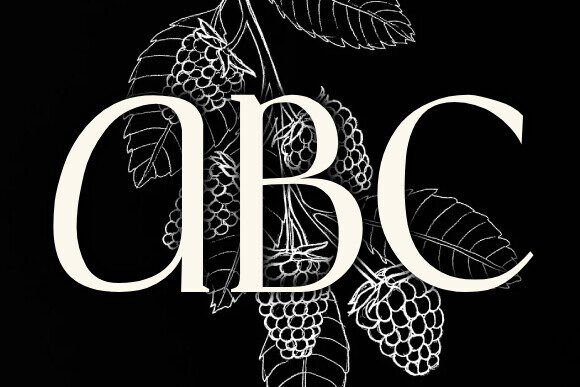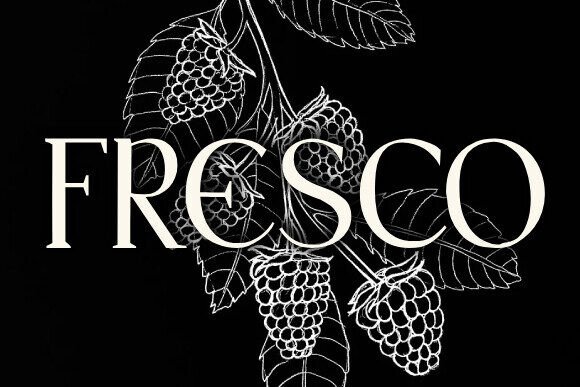
Introduction to Pigment Font
Have you ever been working on a creative project and stumbled upon the perfect font that brings your design to life? For me, that moment was when I discovered the Pigment Font – a stylish and high-quality font that adds a unique touch to any design. Whether you’re creating posters, flyers, or even t-shirts, this font is sure to elevate your work to the next level.
As a designer, I know how valuable a great font can be. It’s not just about aesthetics; it’s about conveying the message and emotion behind your design. And with the Pigment Font, you’ll have the perfect tool to express yourself. Plus, with its transparent background, you can easily integrate it into any design resource, making it a must-have for any creative project.
Pigment Font
- High-Quality Design:** Pigment Font offers a high-quality design suitable for creative projects.
- Transparent Background:** This font features a transparent background, making it an ideal design resource for various creative projects.
- Resolution:** The font is designed to work at any resolution, ensuring it looks great on various devices and screens.
- Perfect for Creative Projects:** Pigment Font is an excellent choice for designers working on creative projects, such as graphic design, digital art, and more.
Honest Review: Pigment Font
I recently stumbled upon the Pigment Font, and I must say it’s a gem in the world of design resources. This font is perfect for any creative project that requires a high-quality, modern aesthetic.
- ✨ High-quality typography: The Pigment Font has a crisp and clean design that’s perfect for headings and titles.
- ✨ Versatile: The font comes in a range of weights and styles, making it easy to find the perfect match for your design.
- ⚠️ Limited language support: The Pigment Font only supports a limited range of languages, which might be a concern for designers working on international projects.
- ⚠️ No transparent background: While the font itself is beautiful, it doesn’t support transparent backgrounds, which can be a bit limiting.
Pigment Font
Tips for Getting the Most Out of Pigment Font
To get the most out of Pigment Font, use it in combination with other high-quality design resources. Experiment with different font sizes, styles, and colors to create a unique and eye-catching design. Don’t forget to use the font’s transparent background feature to create a clean and modern look.
Alternatives to Pigment Font